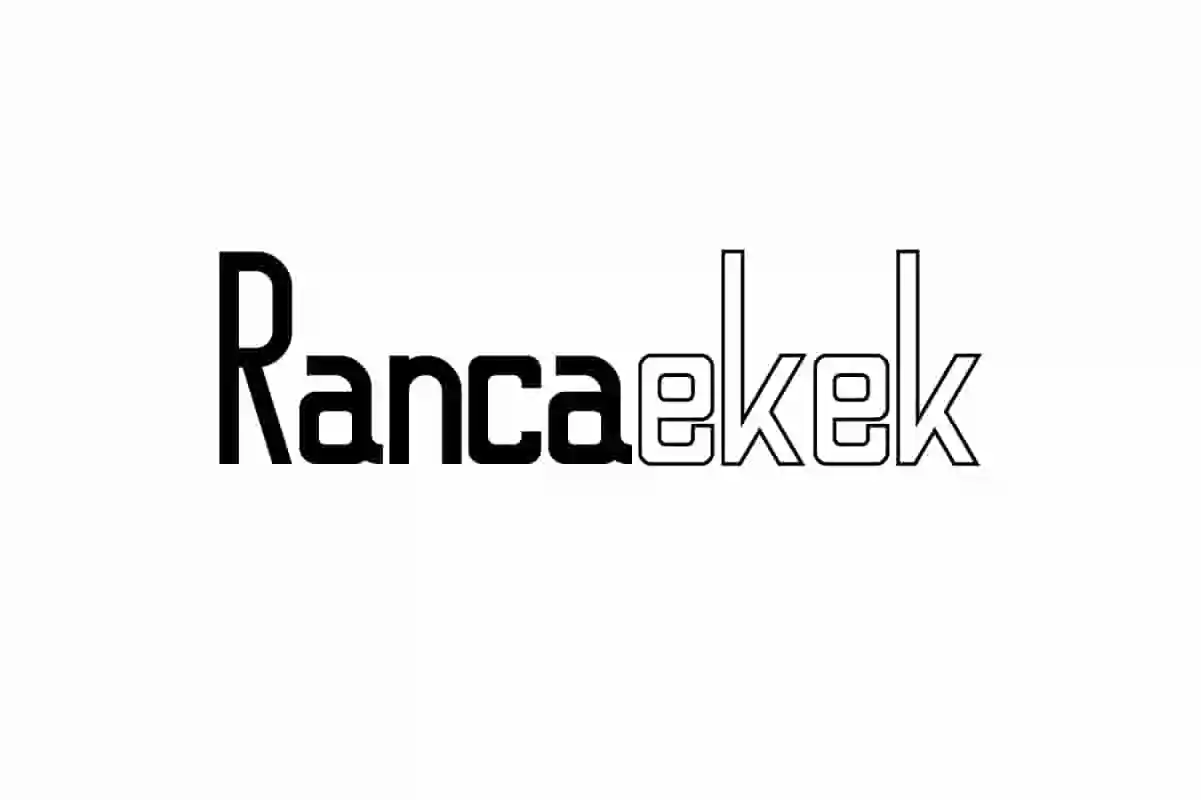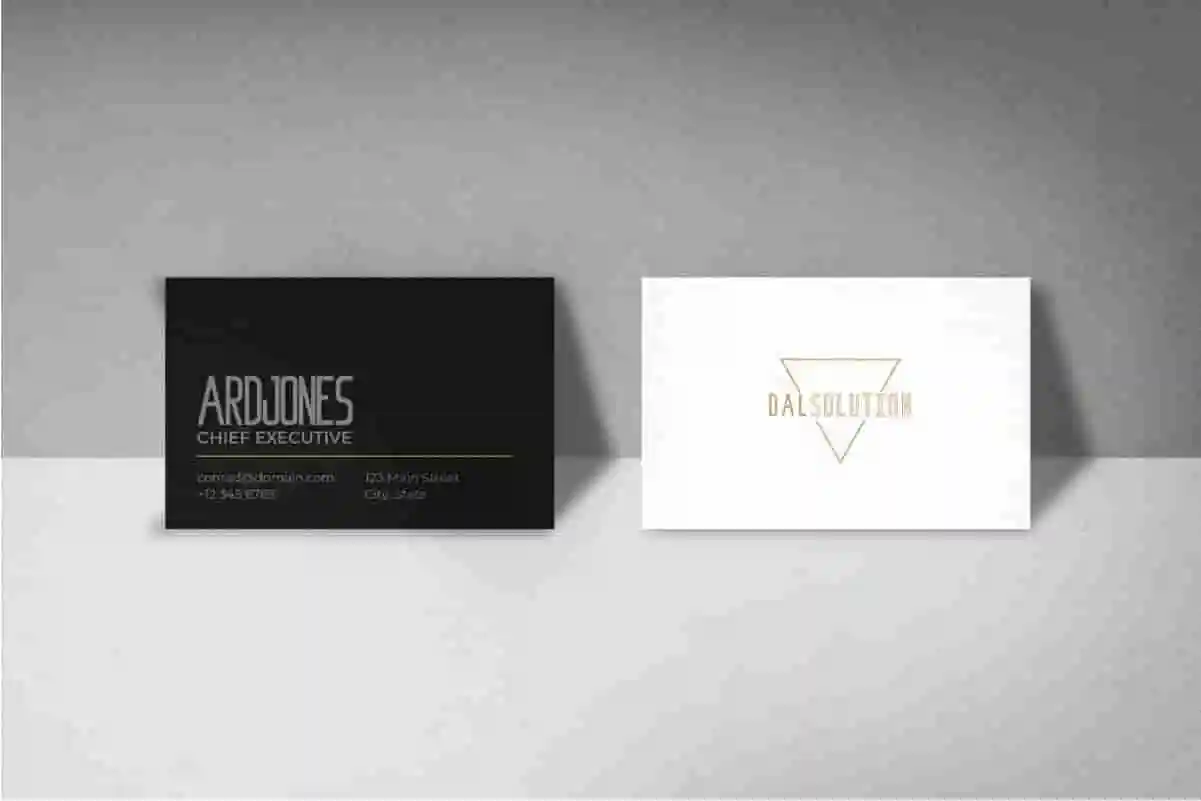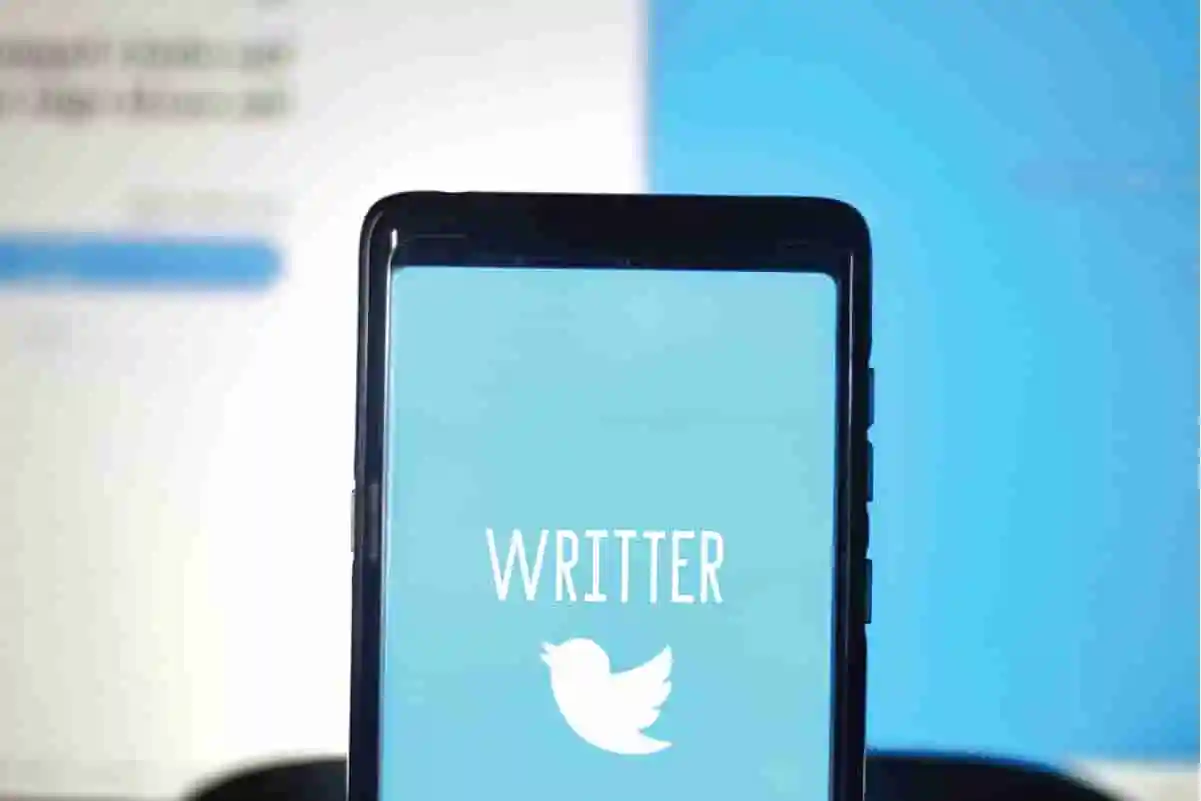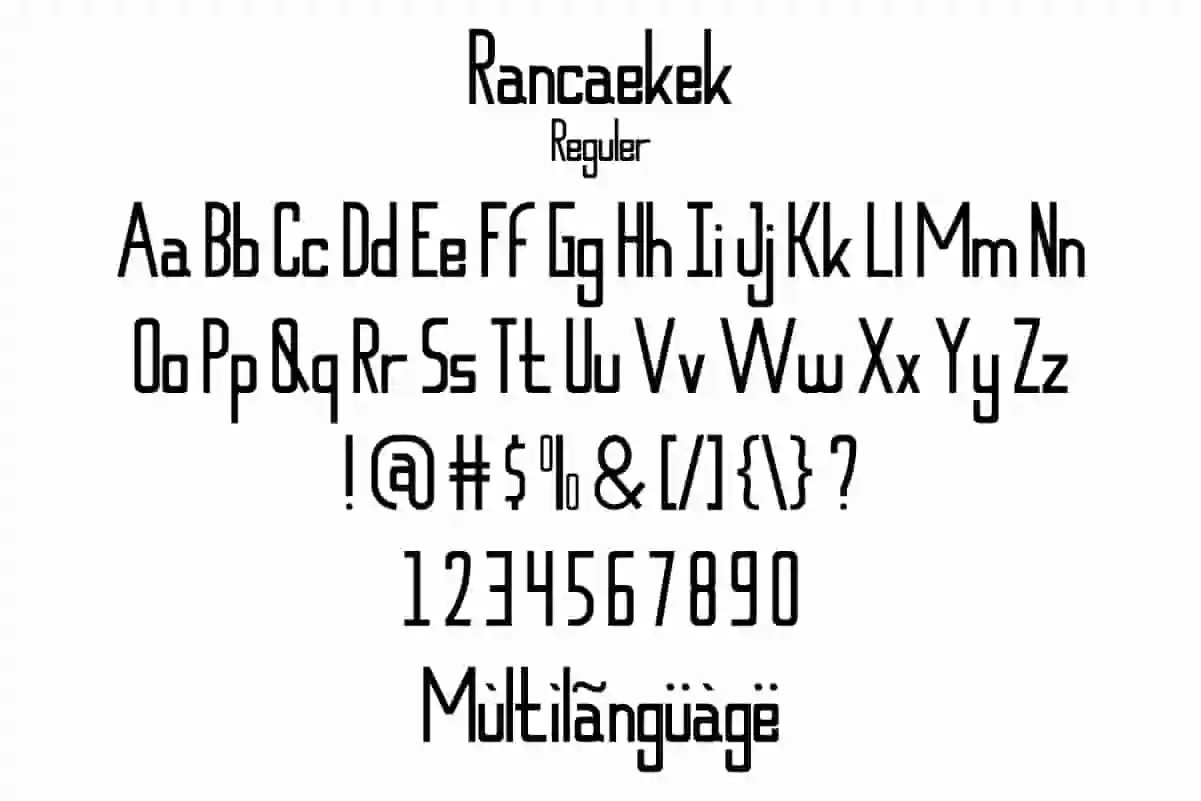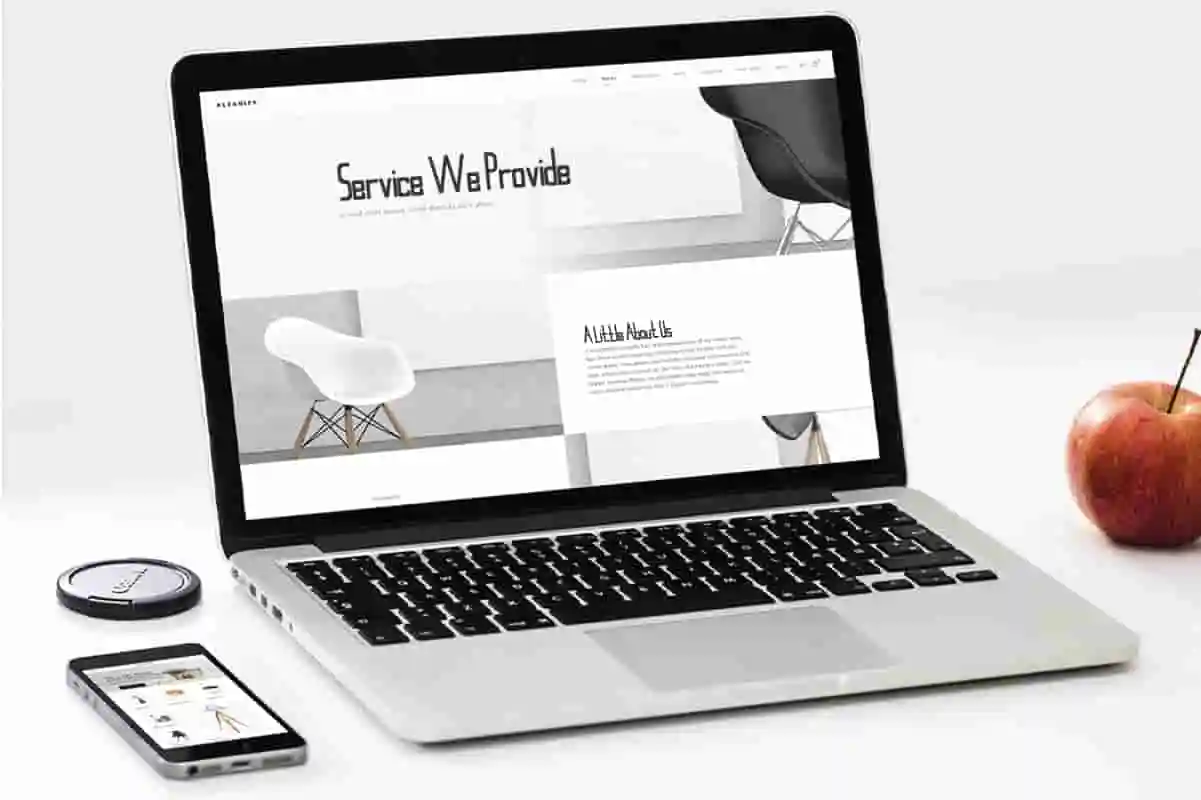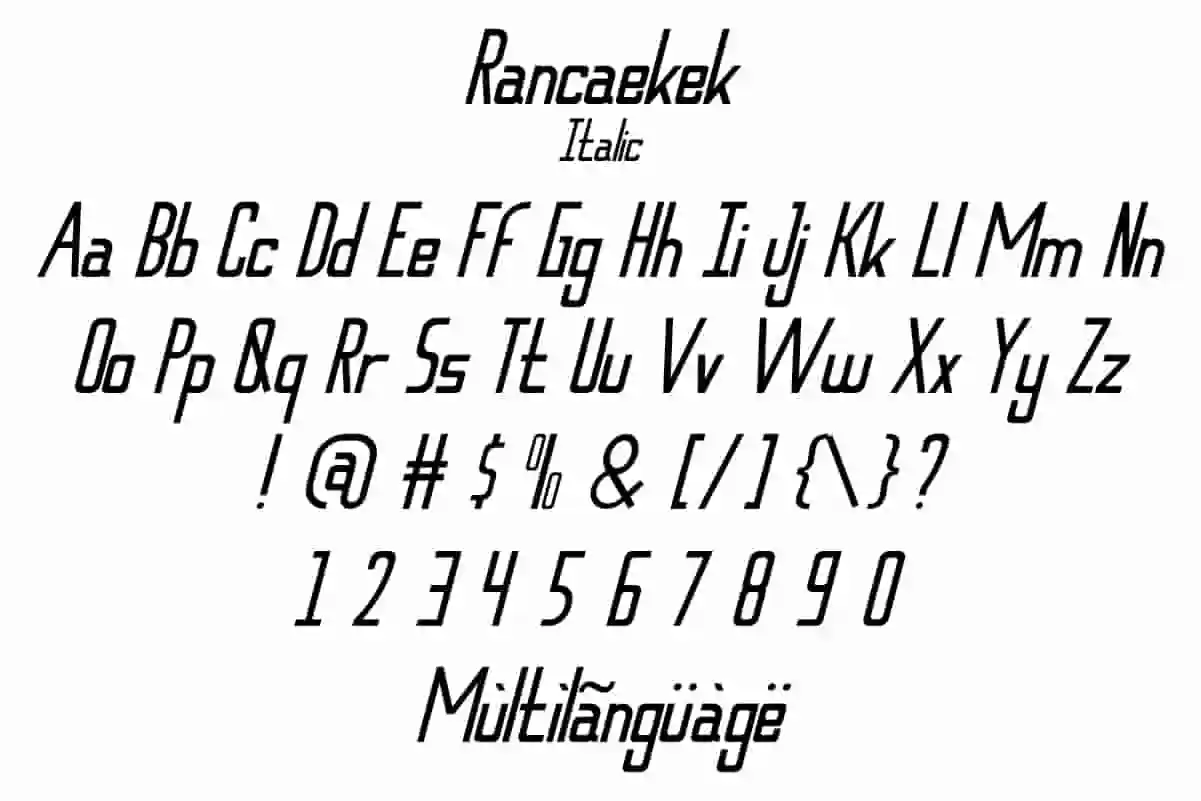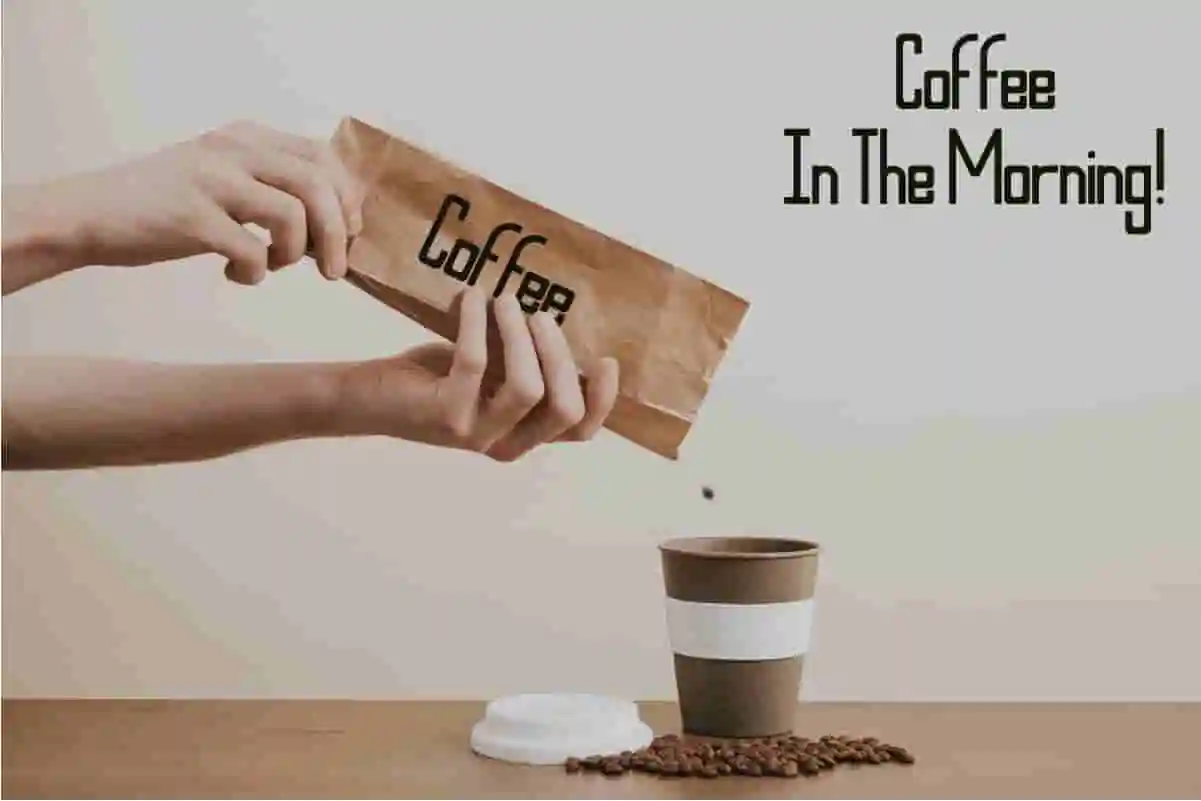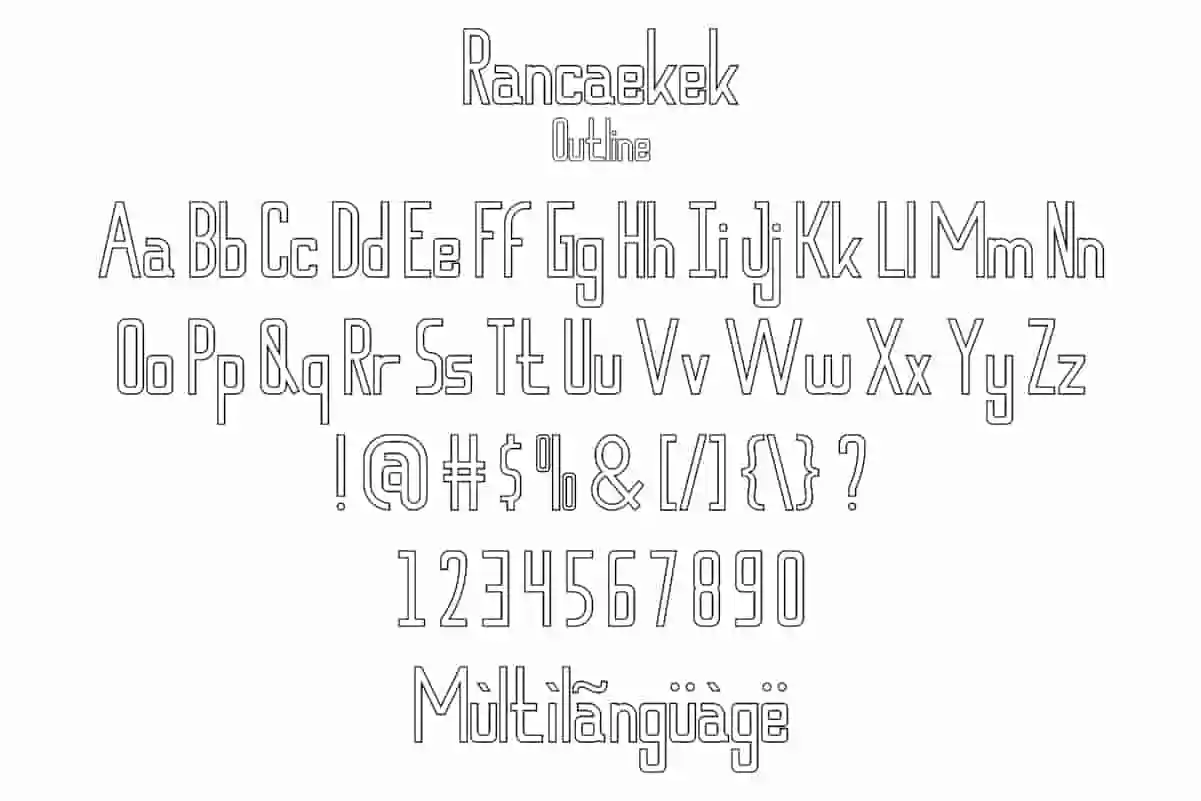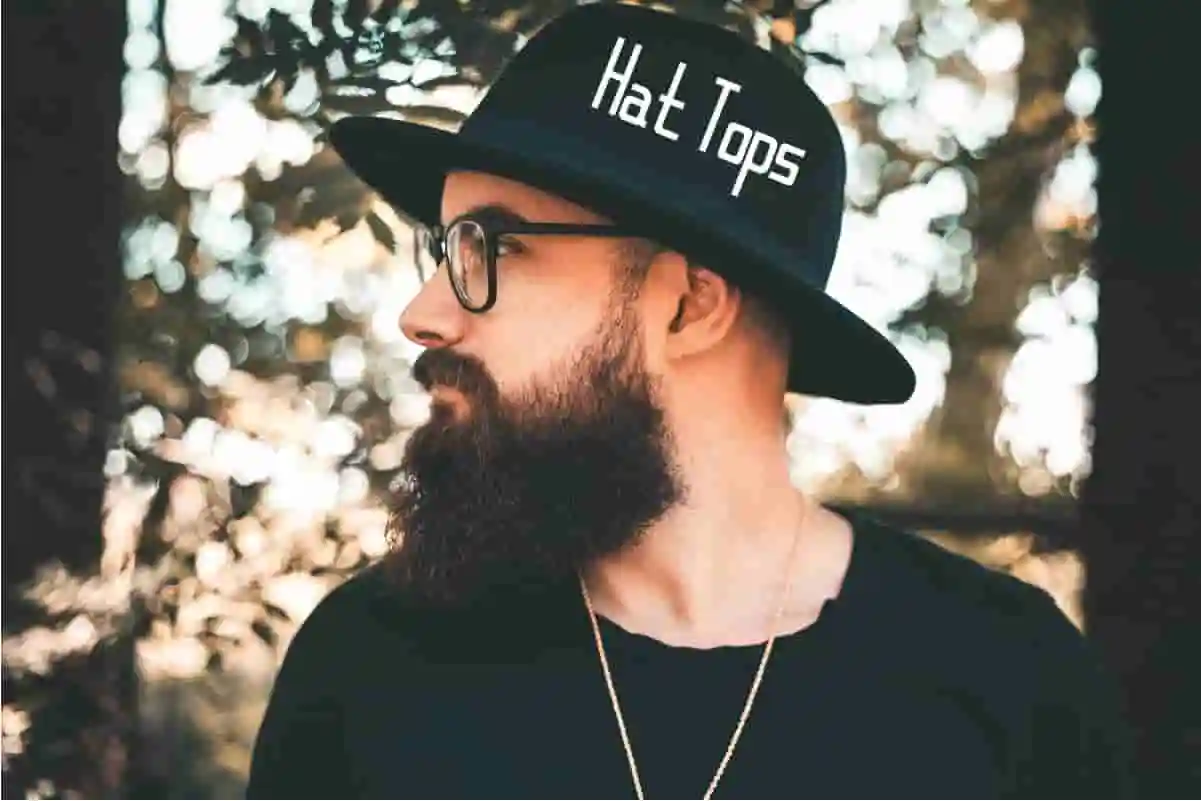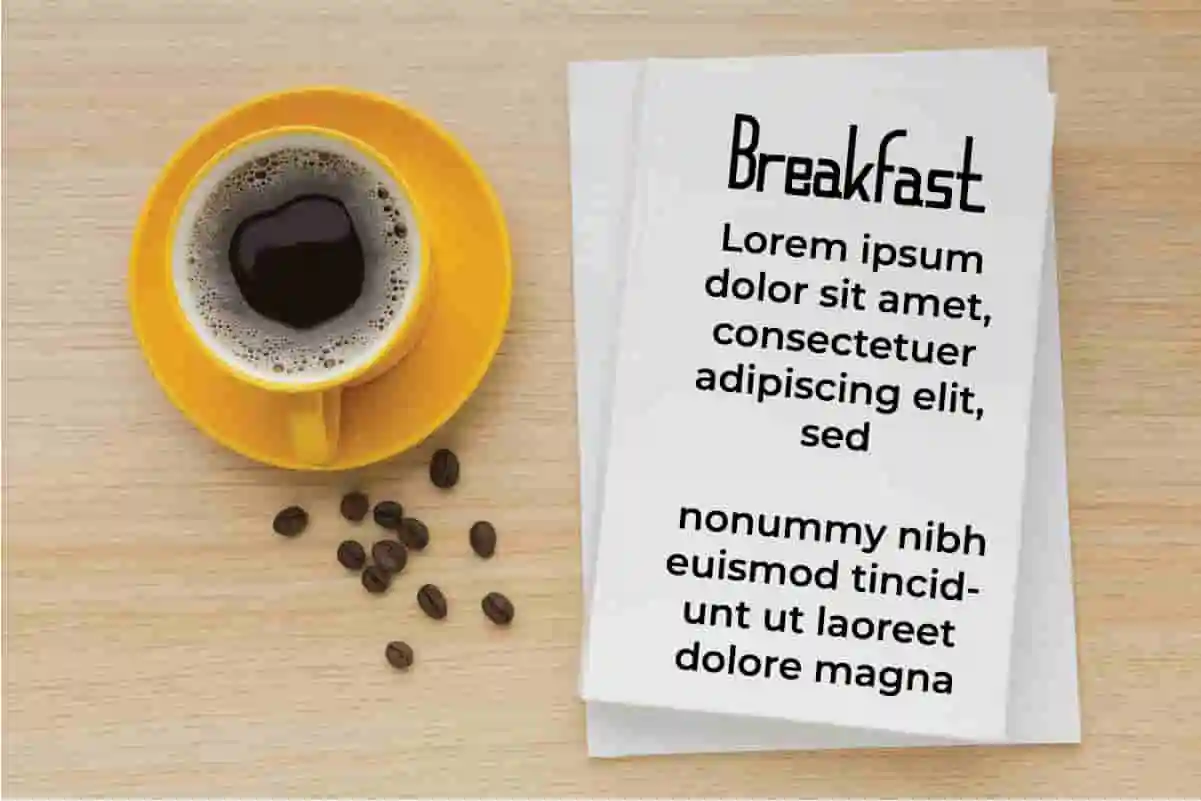
Rancaekek Font
Rancaekek Font is a sans serif display font by NihStudio, made in 2020. Rancaekek Font will great for technology industries, magazine, futuristic or modern projects.
Handcrafted here in our Studio , Indonesia. Rancaekek Font will be great for any projects (require extended license) including : branding, logo, stationery, business card, signage, flyer, brochure etc.